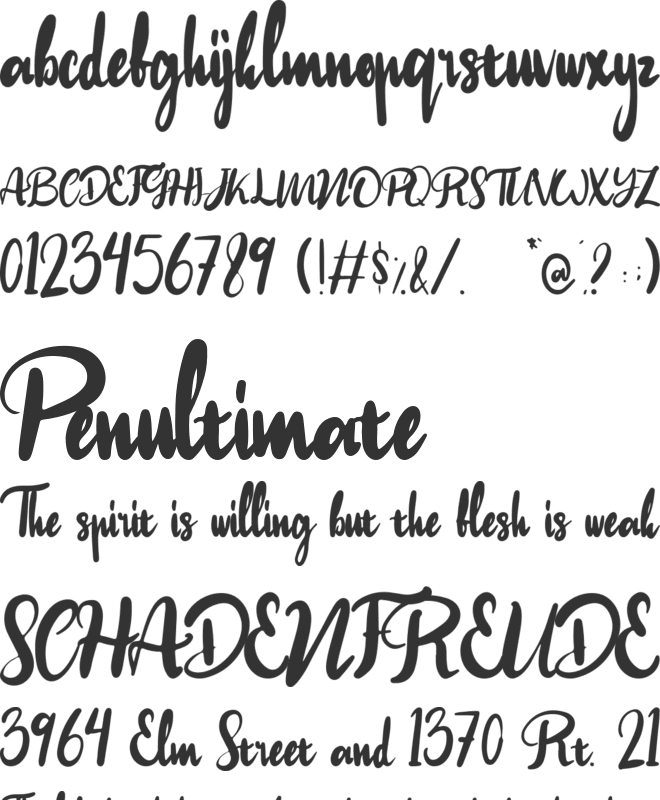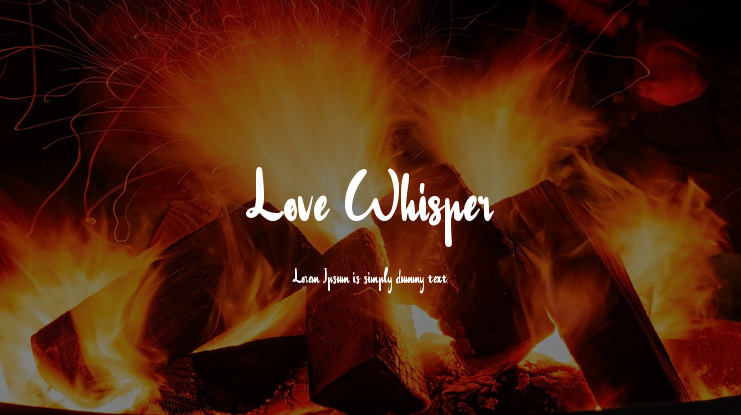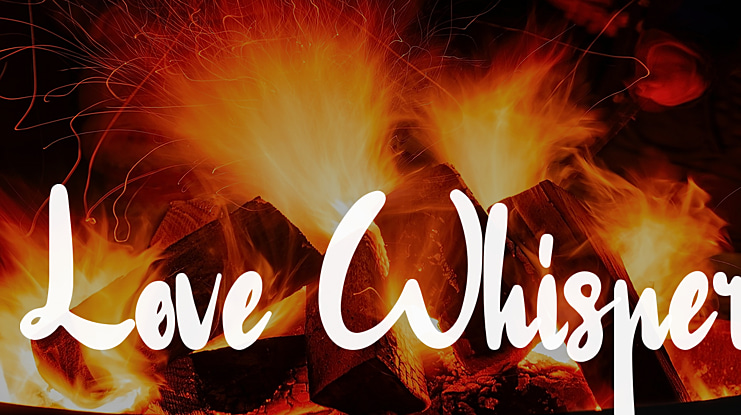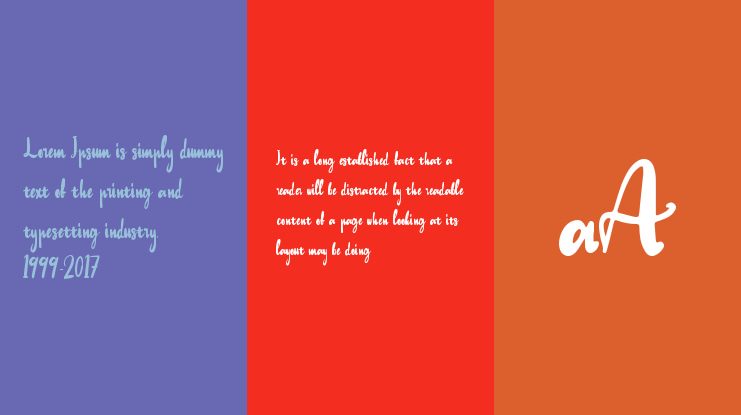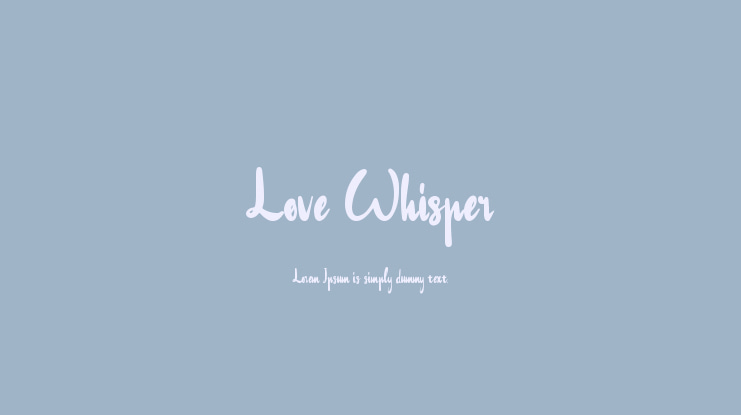
Love Whisper Font
Proudly Present, Love Whisper.
Love Whisper is a Modern Calligraphy Font.
Love Whisper is a romantic handwritten font. Elegant and sweet, it can be used for various purposes, such as logos, wedding invitations, t-shirt, letterheads, news, posters, badges and so much more.